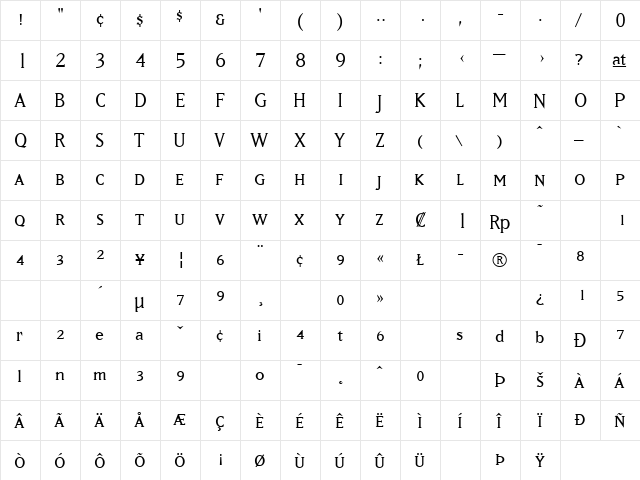
MatrixBookSmallCaps Regular Font Preview
MatrixBookSmallCaps Regular
Design Context for MatrixBookSmallCaps Typeface
MatrixBookSmallCaps offers clean, dependable letterforms without strong stylistic allegiance, making it a practical choice for designers who need flexibility.